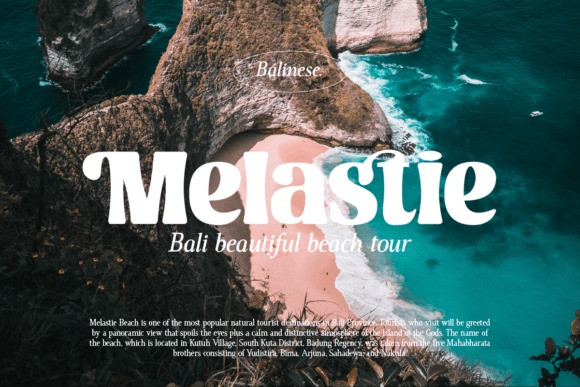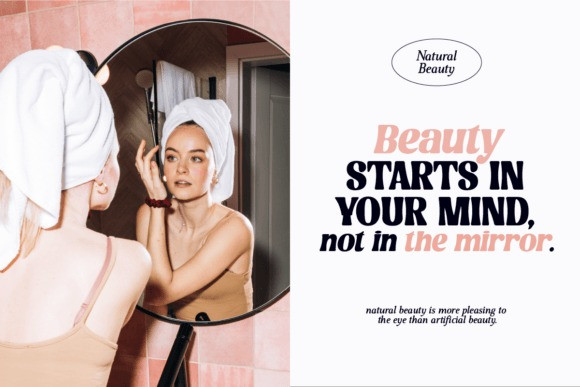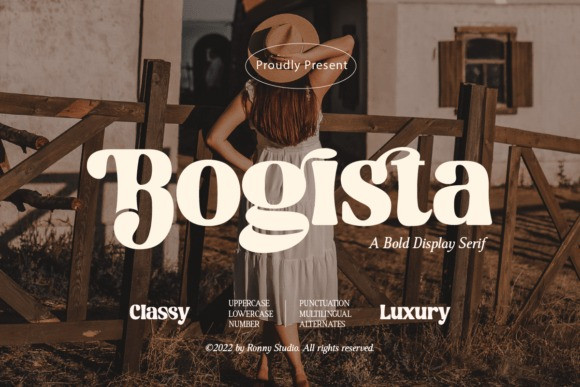
Bogista Font
Bogista Serif Font is an elegant bold serif display font. This font impresses and features an elegant, professionally shaped font, and as a result, it will easily match a variety of creations that call for a different twist. Add it confidently to your projects, and you’ll love the results.